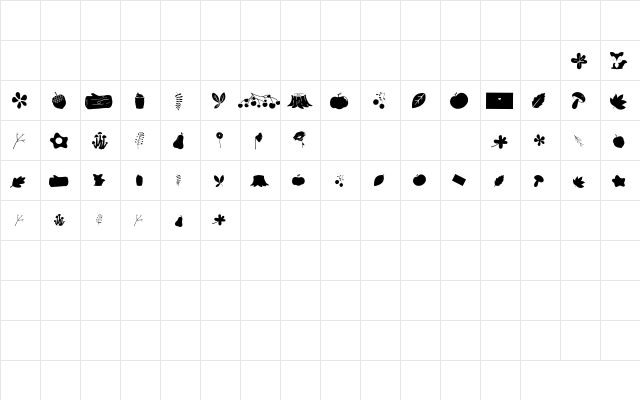
Autumn Days - Personal Use Clipart
| Style | Clipart |
| Foundry | Helotype Co. |
| Designer | Heloyud |
Design Context for Autumn Days - Personal Use Typeface
Autumn Days - Personal Use is a composed and adaptable typeface that performs quietly and consistently across a wide range of design contexts.